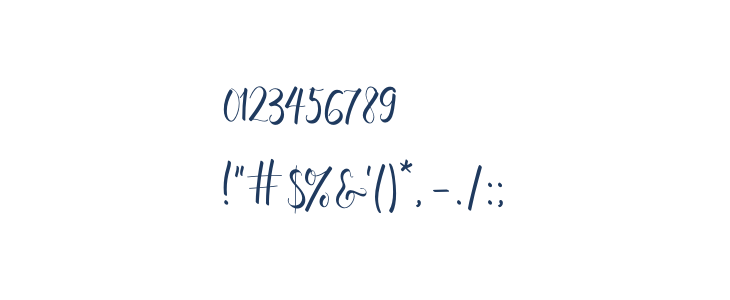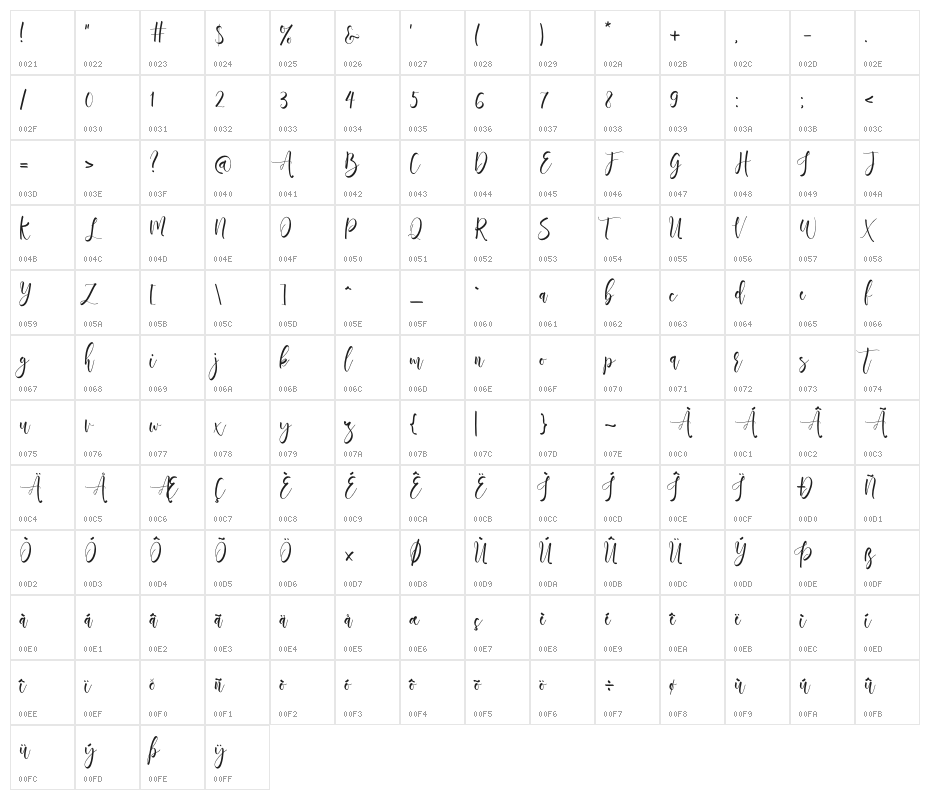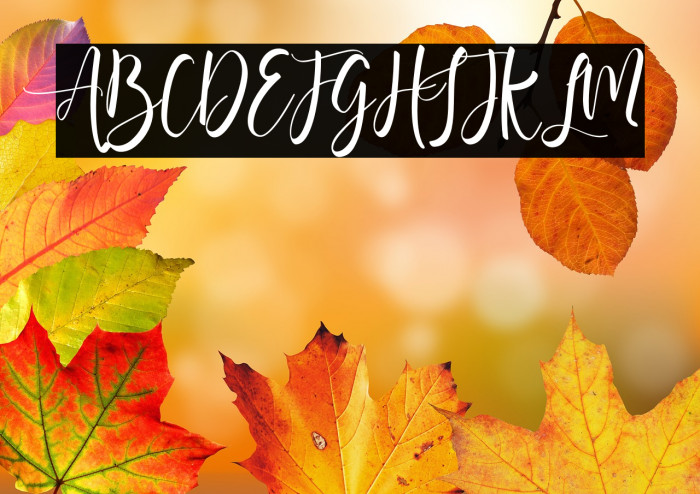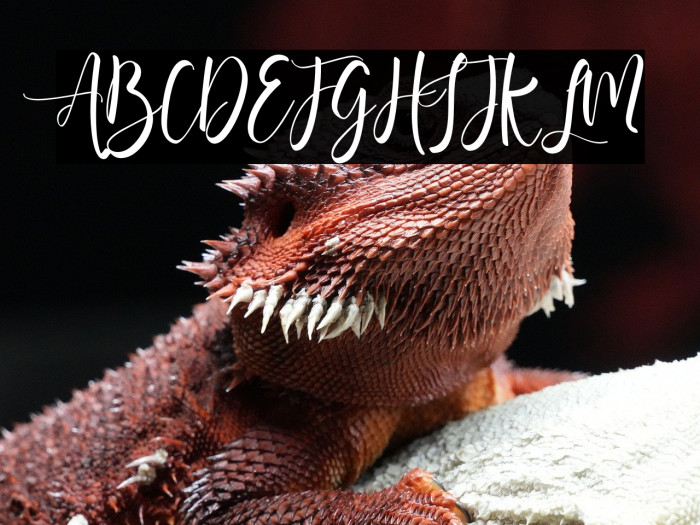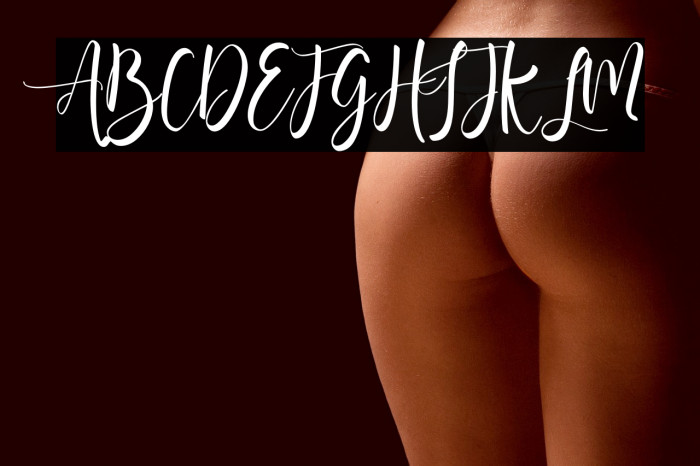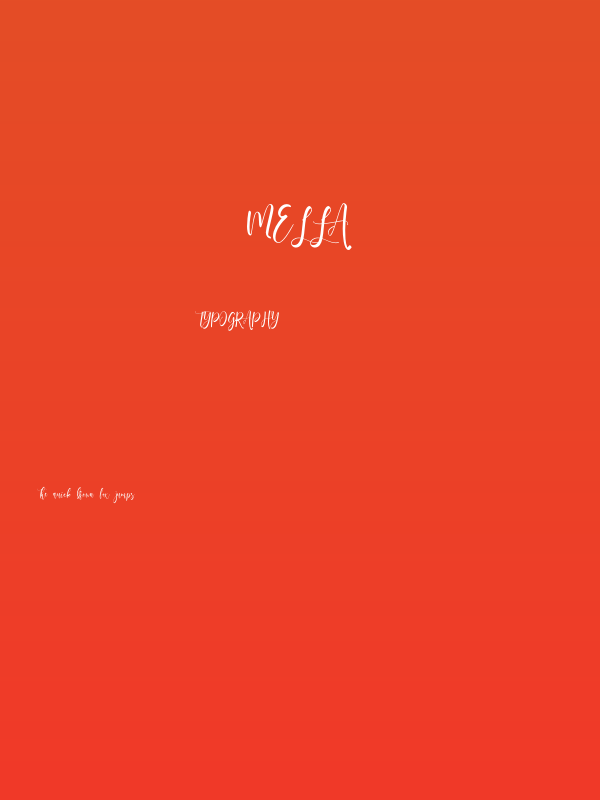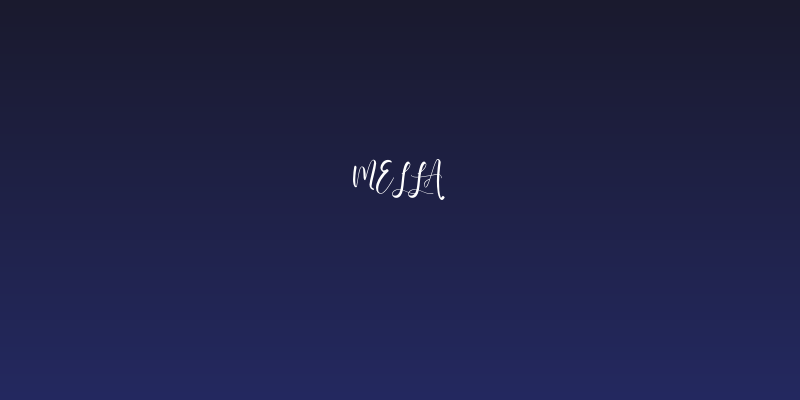
Mella Font
Mella Description
This font exudes a lively and elegant script style, characterized by its flowing, cursive letterforms. The uppercase letters feature dramatic flourishes and loops, adding a sense of movement and grace. The lowercase letters maintain a consistent flow, with some characters extending below the baseline, enhancing the font's dynamic appearance. The numerals are stylish yet legible, complementing the overall aesthetic. Special characters are thoughtfully designed to match the script's fluidity, making this font suitable for creative and expressive projects.
| Proposed Projects | Ideal for wedding invitations, greeting cards, branding projects, and elegant packaging designs. |